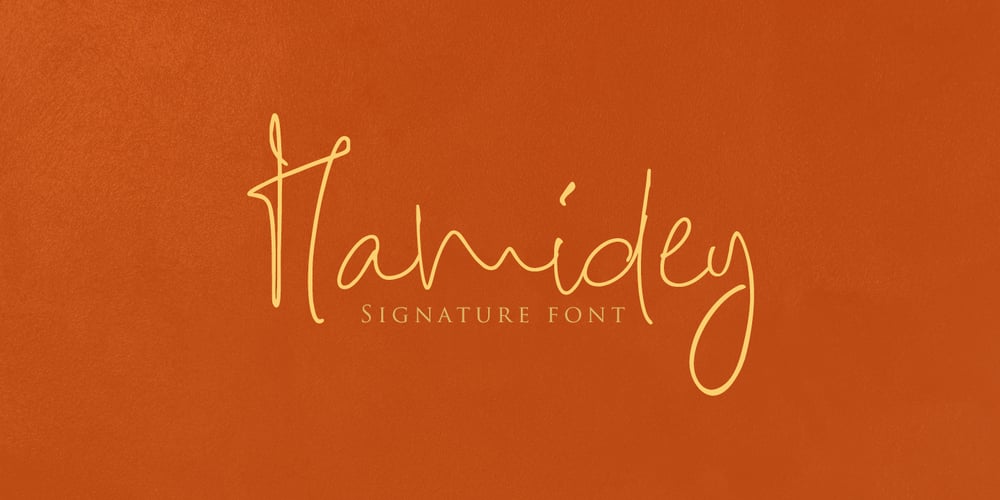
Hamidey
Hamidey font
Hamidey Font Family was designed by Ariefr Munandar and published by dotHK Studio. Hamidey contains 1 styles and family package options. Hamidey is a delicate, elegant and flowing Signature font. It has beautiful and well balanced characters and as a result, it matches a wide pool of designs. Add it to your most creative ideas and notice how it makes them come alive!